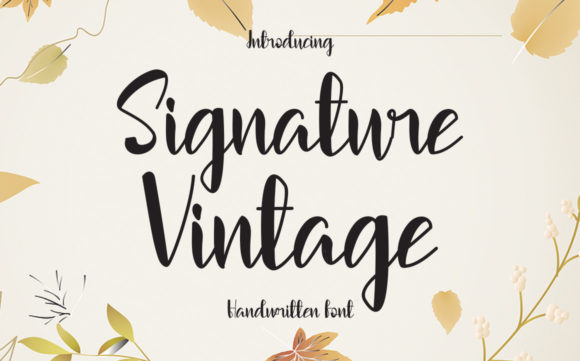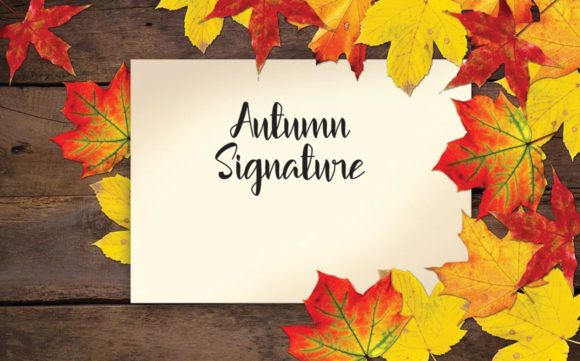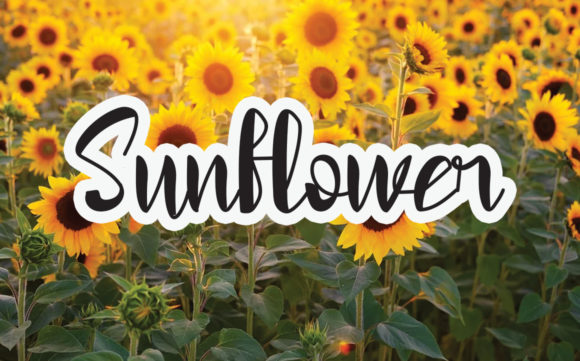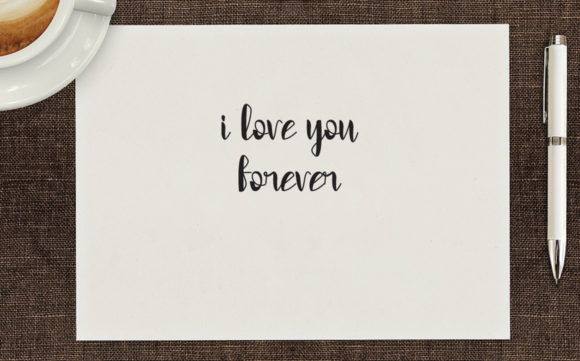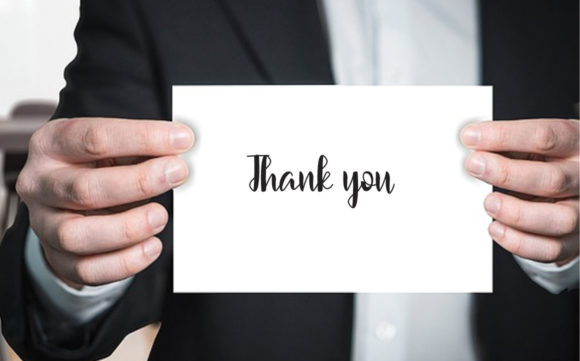
Signature Vintage Font
About Signature Vintage Font
Signature Vintage is a lovely and timeless handwritten font. It is the best choice for creating eye catching logos, branding and quotes. Every letter has a unique and beautiful touch, which will make your design come alive!